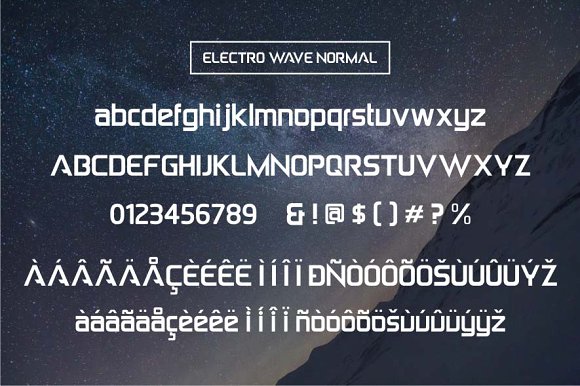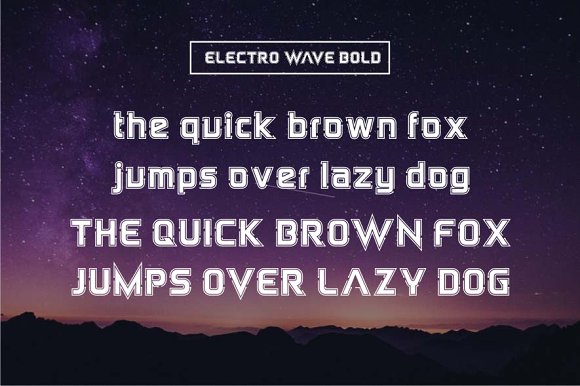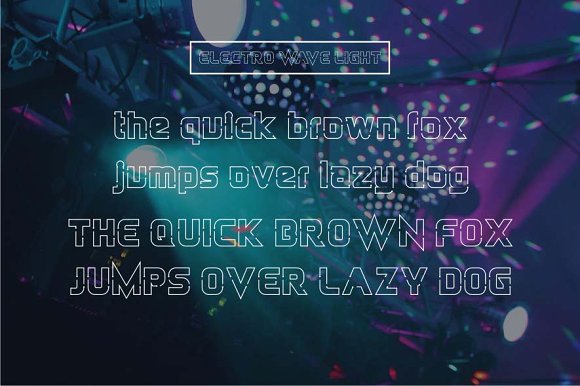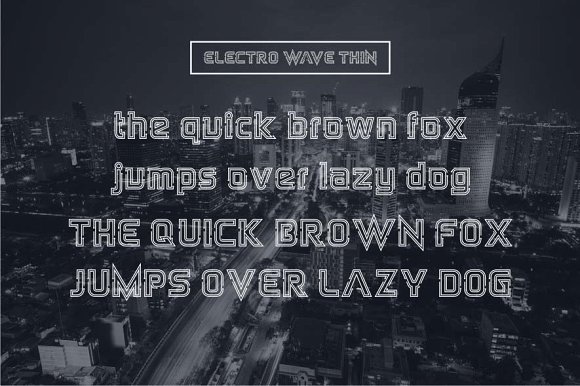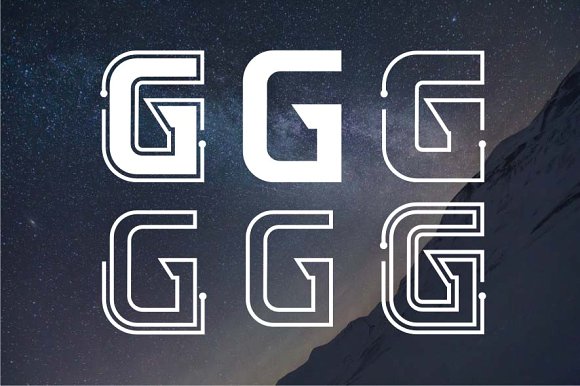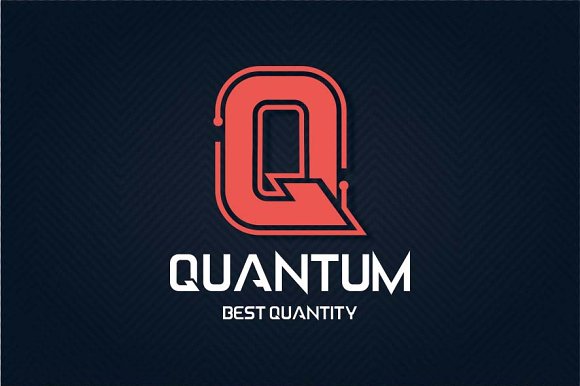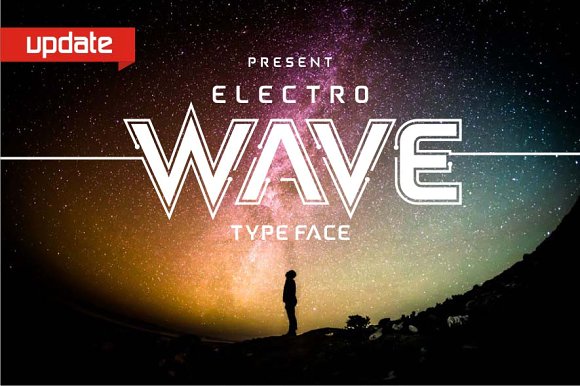
Introducing Electro Wave Font: A Modern, Stylish, and Futuristic Typeface
In the realm of digital design, a font can make all the difference in capturing the essence of a brand or project. For those seeking a modern, stylish, and futuristic typeface, look no further than the Electro Wave font, skillfully crafted by Jamalodin. This versatile font is designed to elevate your designs, offering a fresh and innovative aesthetic that is sure to leave a lasting impression.
Exploring Electro Wave Font Variations
One of the standout features of the Electro Wave font is its range of variations, providing designers with the flexibility to choose the perfect style for their project. The Electro Wave font family includes four distinct variations:
- Electro Wave Regular: The standard version, perfect for everyday use and ideal for body text.
- Electro Wave Bold: A heavier variant, great for headings and titles where you want to make a statement.
- Electro Wave Light: A lighter version, suitable for designs that require a subtle touch, such as in captions or descriptions.
- Electro Wave Thin: The most delicate of the bunch, ideal for when you need a font that’s barely there but still makes an impact.
Design Characteristics and Features
Electro Wave is not just another font; it’s a design statement. Its modern and futuristic aesthetic is characterized by clean lines, geometric shapes, and a sense of dynamism that screams innovation. The font’s sleek appearance makes it perfect for a wide range of applications, from digital interfaces and tech branding to creative projects and advertising.
The Electro Wave font is meticulously crafted to ensure readability across various devices and screen sizes, making it an excellent choice for web and mobile applications. Its unique style also lends itself well to print materials, such as brochures, posters, and business cards, offering a cohesive brand identity across different mediums.
Who Can Benefit from Electro Wave Font?
Electro Wave’s versatility makes it a valuable asset for a broad spectrum of designers and crafters, including:
- Graphic Designers: Looking for a modern and impactful font to elevate their branding and advertising projects.
- UI/UX Designers: Seeking a clean, readable, and futuristic typeface for their digital interfaces.
- Digital Artists and Crafters: Needing a stylish font for their creative projects, such as logos, posters, or digital art.
- Marketers: Aiming to create a strong brand identity with a unique and memorable typeface.
How to Use Electro Wave Font Effectively
To make the most of Electro Wave, consider the following tips:
- Mix and Match: Combine different variations of Electro Wave to create visual hierarchy and add depth to your designs.
- Play with Colors: The font’s sleek design pairs well with bold and vibrant colors, making your designs pop.
- Experiment with Sizes: The range of weights in Electro Wave allows for creative experimentation with font sizes, adding dynamism to your layouts.
| Font Name | Electro Wave Font |
| Author | Jamalodin |
Electro Wave font, with its modern, stylish, and futuristic appeal, is a valuable addition to any designer’s toolkit. Its range of variations, combined with its readability and aesthetic appeal, makes it suitable for a multitude of projects. Whether you’re a seasoned professional or a hobbyist, Electro Wave is poised to elevate your designs and help you make a lasting impression.